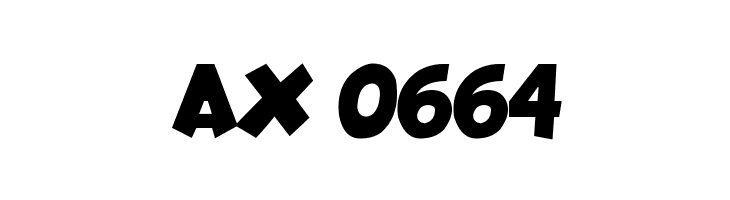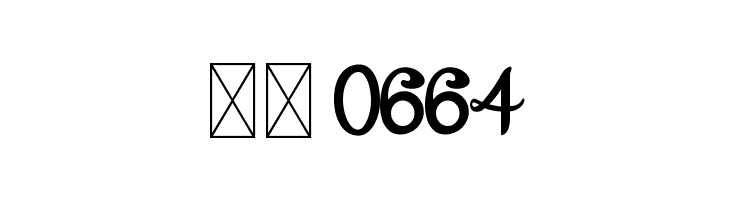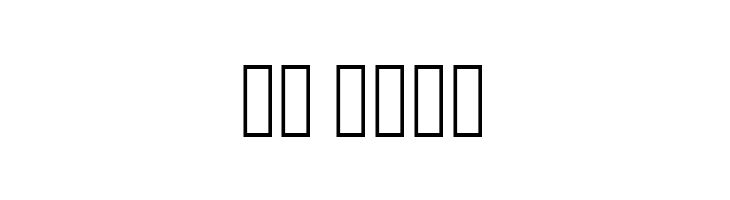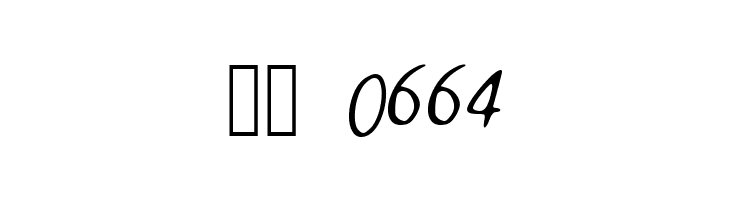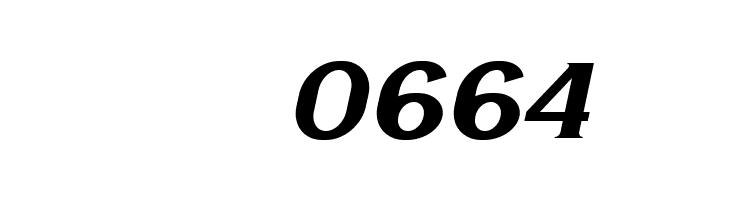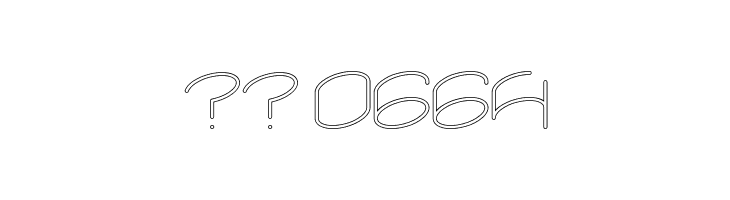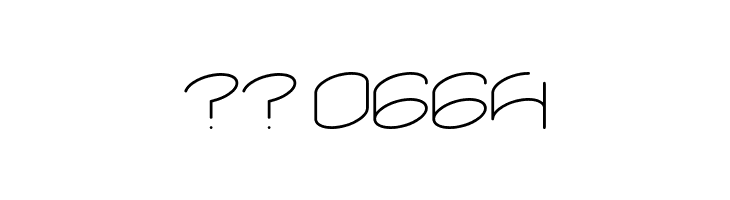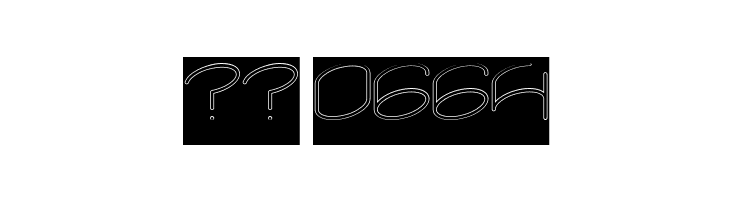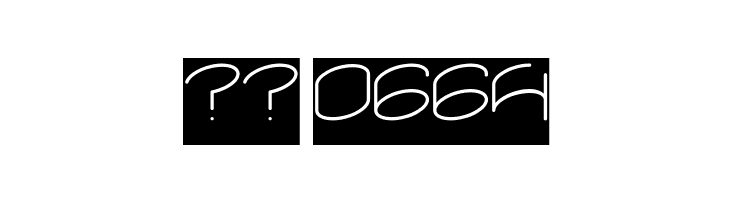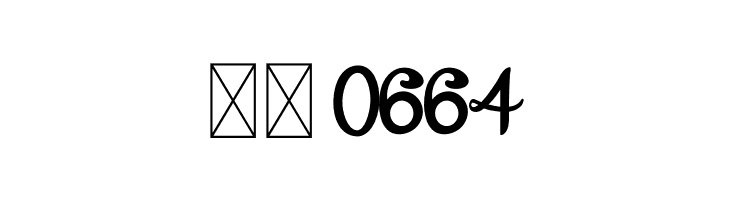
A lively, cursive handwritten font with smooth, connected strokes.
A dynamic and elegant script font with a handwritten style.
A lively, cursive font with interconnected, fluid strokes and a handwritten feel.
A bold, classic serif font with strong strokes and pronounced serifs.
A classic serif font with a dynamic slant and elegant style.
A classic serif font with a dynamic slant and bold presence.
A flowing, elegant cursive font with interconnected characters and moderate stroke contrast.
A bold, expressive script font with ornate, flowing letterforms.
A decorative cursive font with elegant loops and swirls.
A modern, fluid font with a futuristic and cohesive design.
A bold, italicized font with smooth curves and a modern, artistic style.
A modern, cursive font with elegant, flowing lines and a dynamic slant.
A modern, hollow outline font with a futuristic aesthetic.
A modern, hollow, inverse font with geometric shapes and smooth curves.
A modern, sleek font with flowing lines and a futuristic aesthetic.
A sleek, modern font with elongated, minimalistic characters and smooth curves.
A bold, classic serif font with a modern twist, featuring sharp edges and elegant curves.
A bold serif font with sharp, angular serifs and a modern yet classic style.
A bold, playful font with exaggerated, chunky letterforms.
A bold, hand-painted style font with expressive, uneven strokes.
A playful, handwritten font with an organic, casual style.
A playful handwritten font with smooth curves and a casual style.
A playful and whimsical handwritten font with fluid, interconnected characters.
A playful, handwritten script with a casual and whimsical style.
A playful, cursive font with a handwritten style and dynamic strokes.
A bold, expressive handwritten font with fluid, dynamic strokes.
A bold, expressive handwritten font with fluid strokes and dynamic style.
A bold, playful handwritten font with expressive strokes and a lively character.
A playful and casual handwritten font with fluid strokes and a friendly appearance.
A flowing, elegant script font with high contrast and graceful swashes.
A whimsical, medieval-inspired font with playful, hand-drawn characters.
A fluid and elegant handwritten script with interconnected strokes.
An elegant and flowing script font with graceful loops and smooth cursive strokes.
A dynamic and elegant script font with fluid, cursive strokes and high contrast.